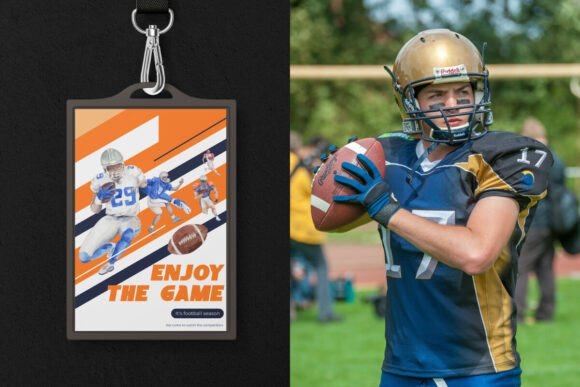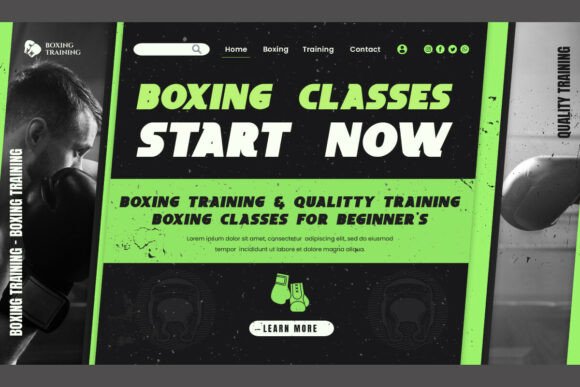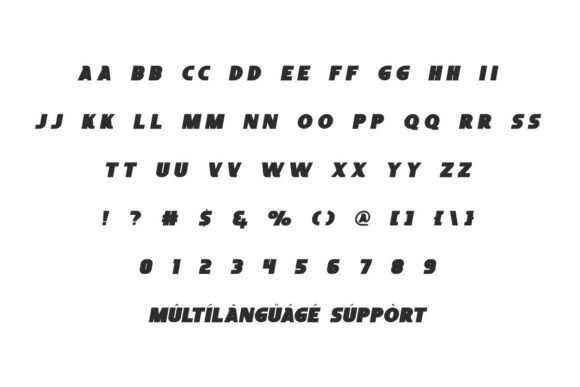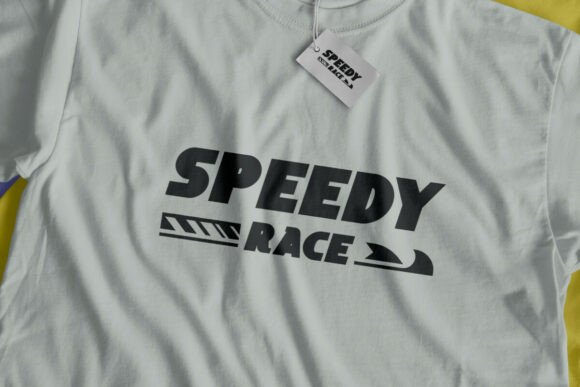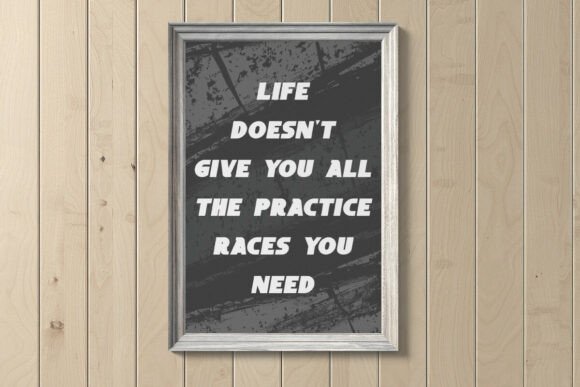
The Ultimate Font for Winners: A Deep Dive into Favorite Winner
I still remember the frustration of working on a sports team branding project, searching for the perfect font that could convey the energy, strength, and competitive spirit of the team. The client wanted a bold, attention-grabbing typeface that would make their logo stand out, but I was struggling to find something that fit the bill. That’s when I stumbled upon Favorite Winner, a no-nonsense, high-intensity Bold Display Sans-Serif font that has since become my go-to for any project that needs a winning edge.
First Impressions: A Font that Means Business
Favorite Winner is a heavy hitter, designed to command attention and convey undeniable power and victory. Its maximum weight and slightly condensed width deliver a solid, competitive visual punch that’s hard to ignore. The font’s aggressively slanted, italicized posture injects kinetic energy and forward momentum into the text, symbolizing speed and determination.
The clean, sharp terminal points and exceptionally thick strokes ensure superior visibility in competitive environments, making it ideal for sports team branding, eSports logos, automotive graphics, motivational posters, and headlines for action-oriented media.
- ✨ Unadulterated strength and victory: Favorite Winner is engineered for the podium, providing a powerful, clear, and undeniably dominant voice for any project seeking a competitive edge.
- ✅ High visibility: The font’s exceptionally thick strokes and clean terminal points make it perfect for use on various backgrounds and in different environments.
- 🔥 Versatility: Favorite Winner can be used for a wide range of projects, from sports and eSports to automotive and motivational posters.
- ⚠️ Limited use in body text: Due to its bold and condensed nature, Favorite Winner is best suited for headlines and titles, rather than body text.
- 🤔 Limited flexibility: While the font has some OpenType features, it’s not as flexible as some other fonts when it comes to customization.
The story behind Favorite Winner is one of passion and dedication. The font’s designer, a sports enthusiast and typography expert, set out to create a typeface that would capture the essence of competition and victory. Drawing inspiration from classic athletic typography and modern design trends, they crafted a font that is both bold and beautiful.
Q: What is Favorite Winner font best used for?
A: Favorite Winner is best used for sports team branding, eSports logos, automotive graphics, motivational posters, and headlines for action-oriented media.
Q: Can I use Favorite Winner for body text?
A: While Favorite Winner can be used for body text, it’s not recommended due to its bold and condensed nature. It’s best suited for headlines and titles.